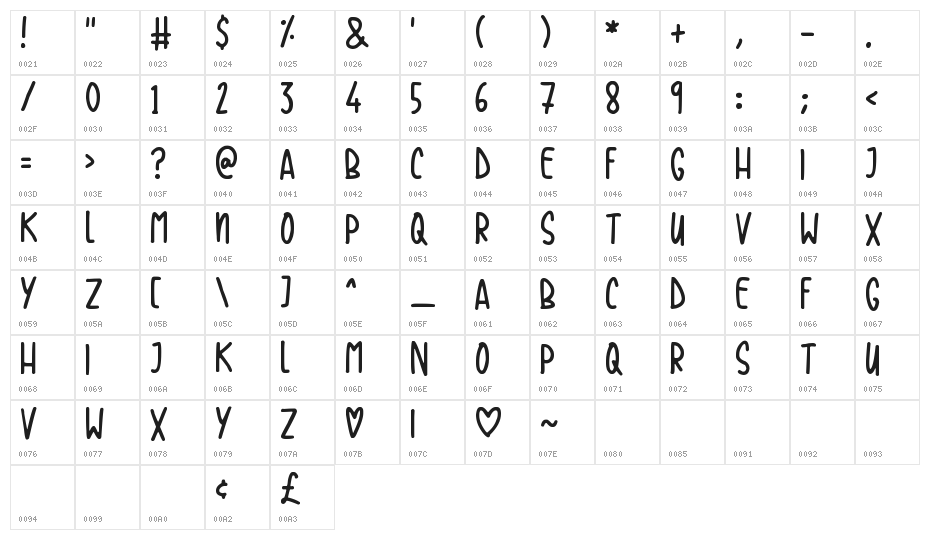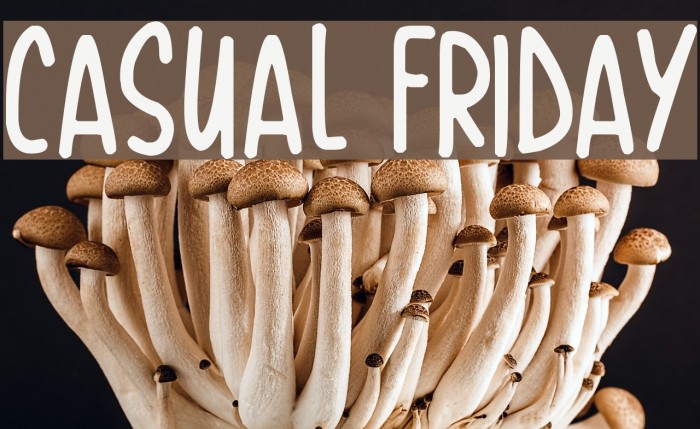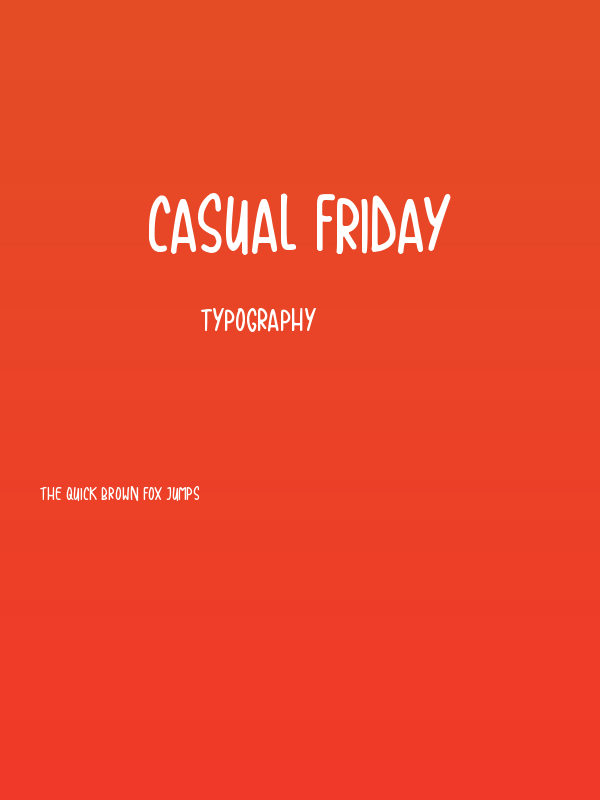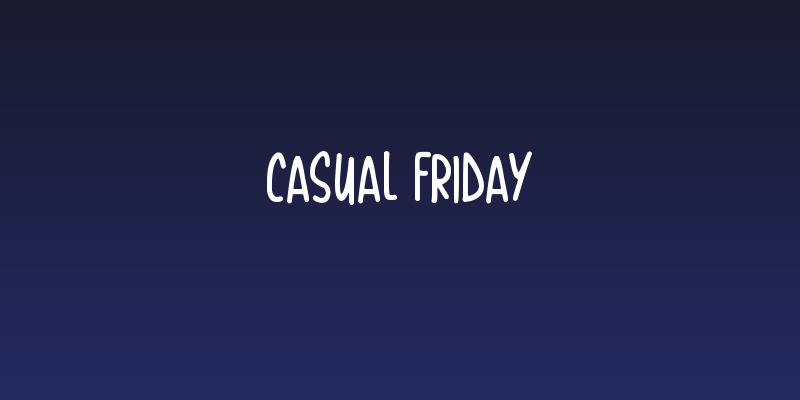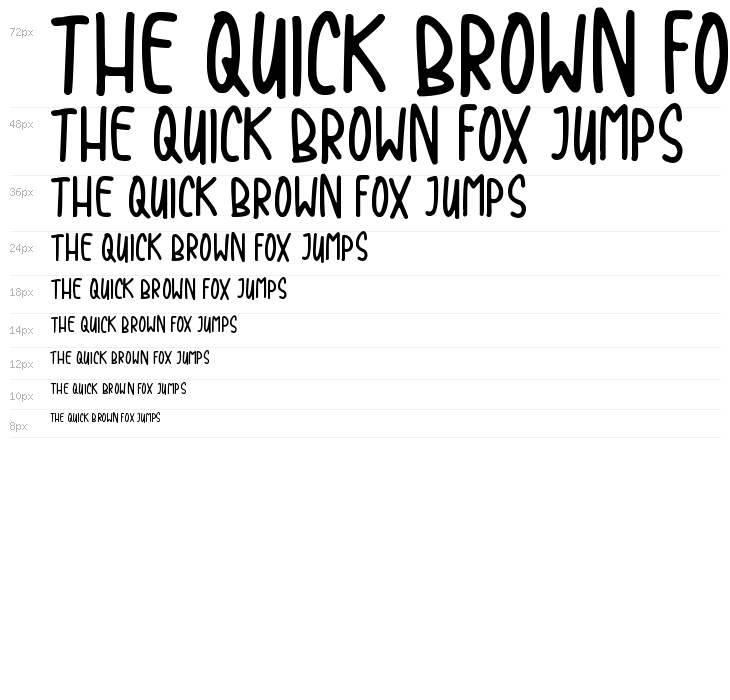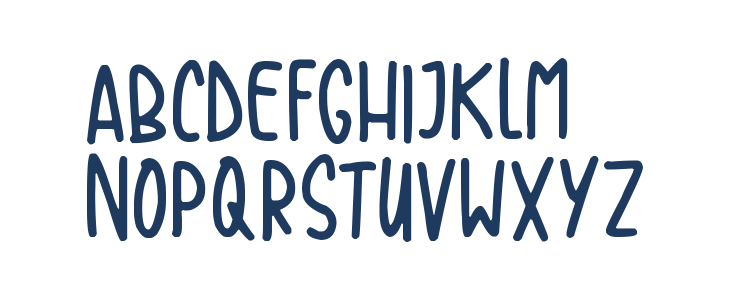
Casual Friday Font
Casual Friday Description
This font exudes a playful and casual vibe with its handwritten style. The characters are slightly irregular, adding a personal and informal touch. The strokes are consistent in width, giving it a uniform appearance despite its casual nature. The letters are tall and narrow, with rounded edges that soften the overall look. This font includes a full set of uppercase and lowercase letters, numbers, and a variety of special characters, making it versatile for different uses. The spacing between characters is moderate, ensuring readability while maintaining its relaxed style.
Darrell Flood
Overall StyleCasual
Use CaseHeadlines, Informal text, Branding
Proposed ProjectsIdeal for greeting cards, children's books, casual branding, and social media graphics.